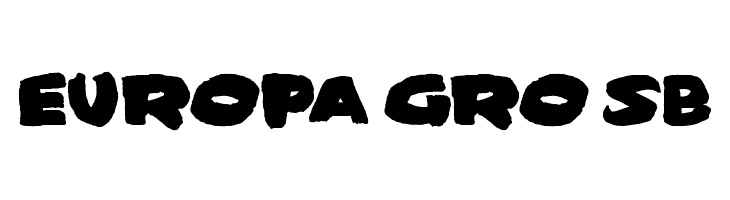
A distressed, sketch-like font with a chaotic and edgy appearance.
A bold, gritty font with a distressed, urban street art style.
A bold, graffiti-inspired font with a rough, hand-drawn look.
A bold, hand-drawn font with dynamic, irregular strokes for a rebellious look.
A bold, brush-style font with dynamic, hand-drawn strokes.